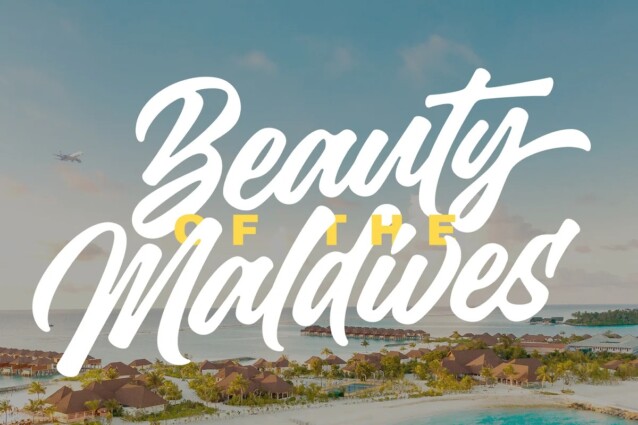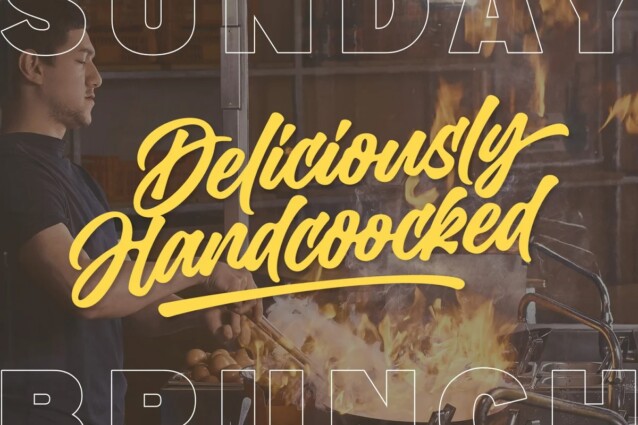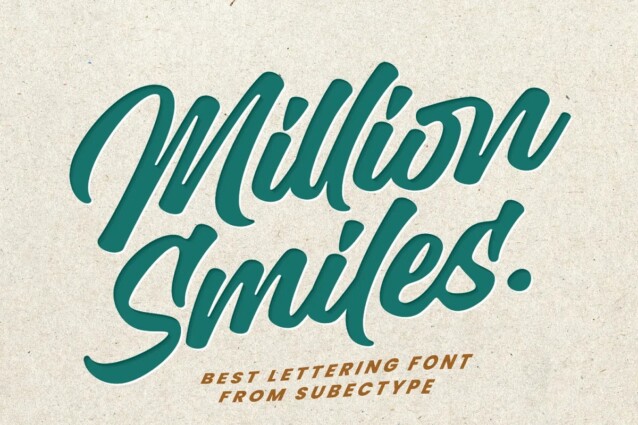
Million Smiles Font
Million Smiles Font is a classic casual script font with a marker-like appearance. This font is supported by ligature, stylistic set, and multilingual which complement this font for your work. This enchanting font is the perfect choice for design projects that aim for a fun, urban, and classy vibe. It adds a touch of cool to your creativity without losing its elegant charm.